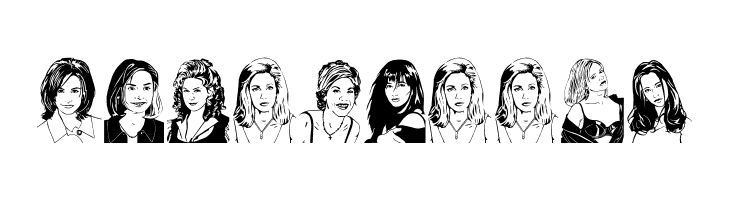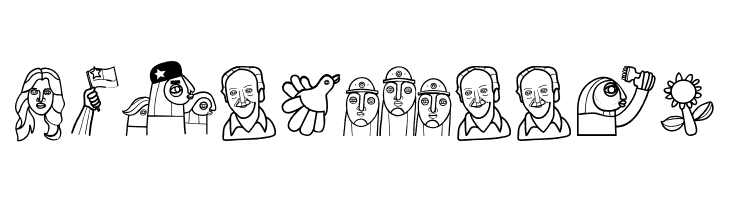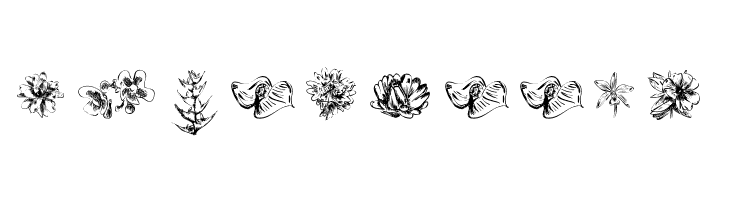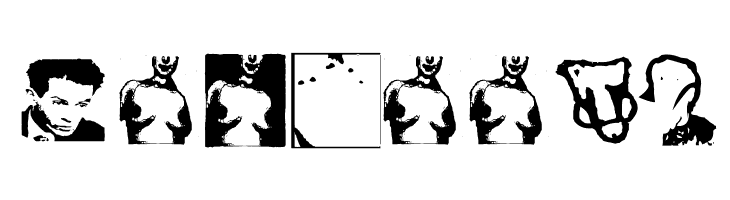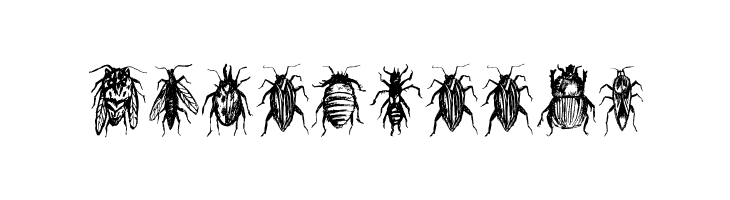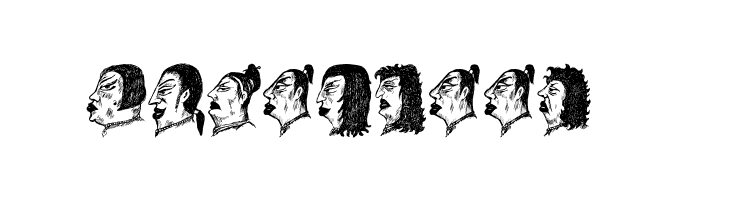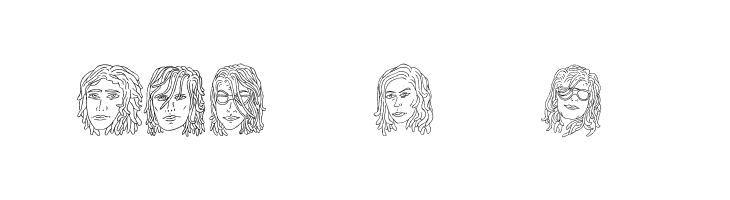
( LingDong Huang )
Monochrome pixel art illustrations of firearms in a retro digital style.
( Michael Gaines )
Illustrative font with each glyph as a woman's portrait.
( Rasdesign - Rodrigo Araya Salas - www.behance.net/rasdesign )
Hand-drawn decorative dingbat font with abstract portraits and symbols.
( Tupiniquim Design - www.tupiniquimdesign.com.br )
A collection of floral illustrations, not a functional font.
( Vincenzo Silvestroni - vinsil.net/ )
A surreal, erotic-themed decorative symbol font with bold, abstract illustrations.
( Vladimir Nikolic - www.coroflot.com/vladimirnikolic )
Illustrative font featuring detailed bug drawings as characters.
( Vladimir Nikolic - www.coroflot.com/vladimirnikolic )
A collection of artistic human profile illustrations, not a traditional font.
( Vladimir Nikolic - www.coroflot.com/vladimirnikolic )
A bold decorative font using illustrated faces as characters.
( Vladimir Nikolic - www.coroflot.com/vladimirnikolic )
A decorative font using illustrated caricatures as glyphs.
( Vladimir Nikolic - www.coroflot.com/vladimirnikolic )
Illustrative font with unique hand-drawn female faces as characters.